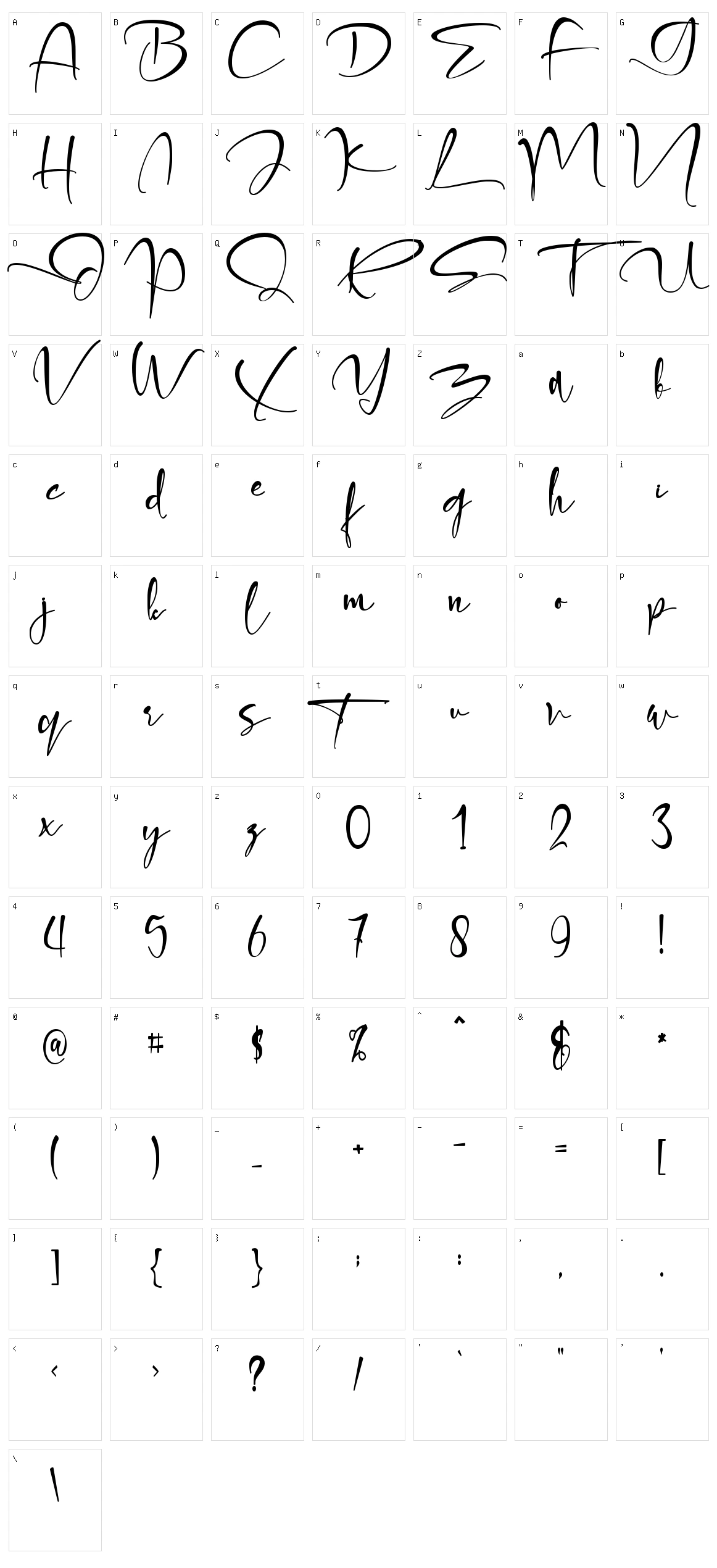
The free font Olliffia is carefully designed by Letterara, showcasing a thoughtful balance of creativity and usability and falls under the Script font style. When you download the ZIP file, it contains only 441.76 KB of font files, making it lightweight and quick to download. Please review the license details below to understand permitted usage and distribution rights. If license information is not available, we recommend using this font for personal projects only or contacting the author directly for commercial usage permissions.